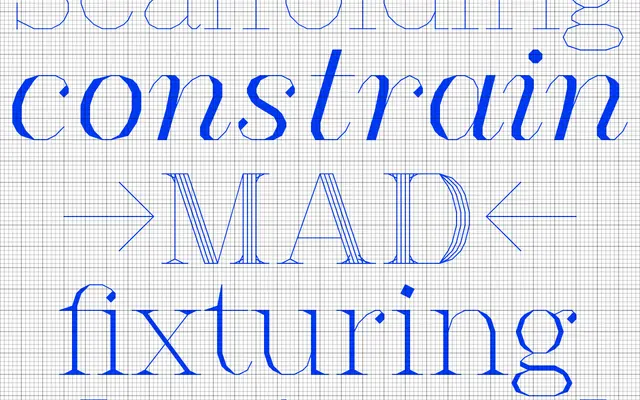
MAD Serif
A serif typeface by Dries Wiewauters constructed on a 45 UPM grid, drawing its formal logic from the plotter typefaces used in early CAD systems.
MAD is an acronym for Machine Aided Design, and the typeface's letterforms are built on the same grid-based constraints that governed plotter output in early computer-aided drafting. MAD Serif pairs the family's characteristic harshness with sharper, more delicate terminals, making it serviceable across headline and body copy sizes. Four weights from Light to Black are offered with italics, and a filled variant doubles the range; STD and PRO licensing tiers separate the core character set from OpenType features and stylistic alternates.
MAD Serif is constructed on a strict 45 UPM grid derived from CAD plotter typefaces, giving it a geometric rigidity unusual in serif type; its sharp, constricted connections and grid-based construction place it firmly in geometric serif territory.